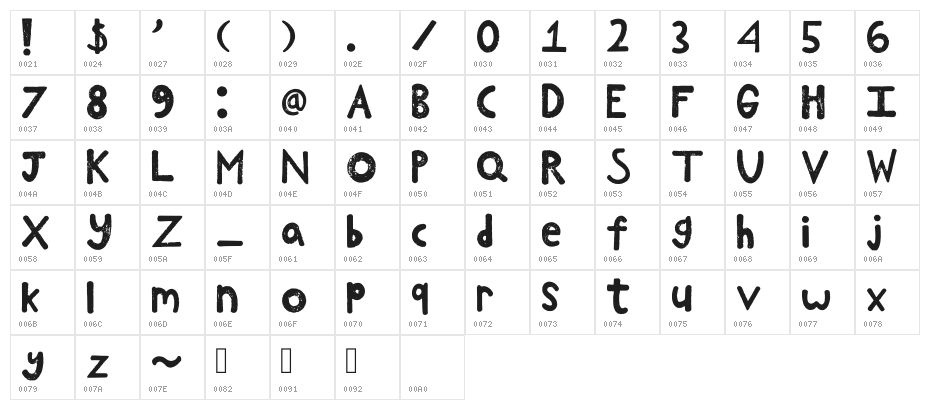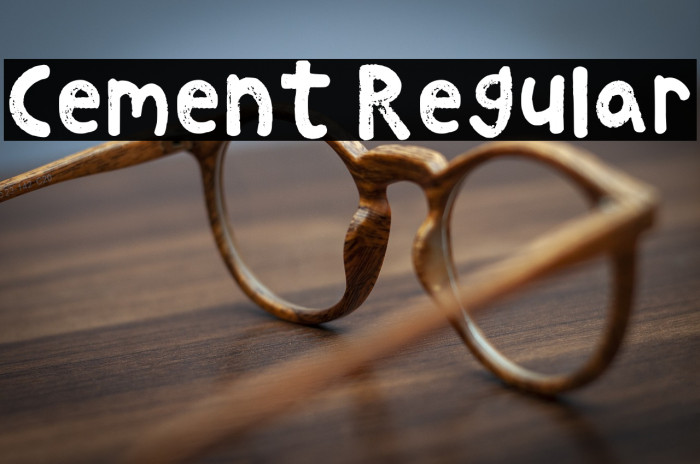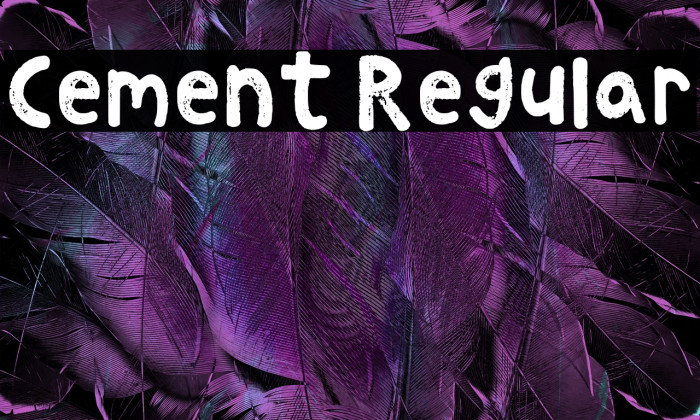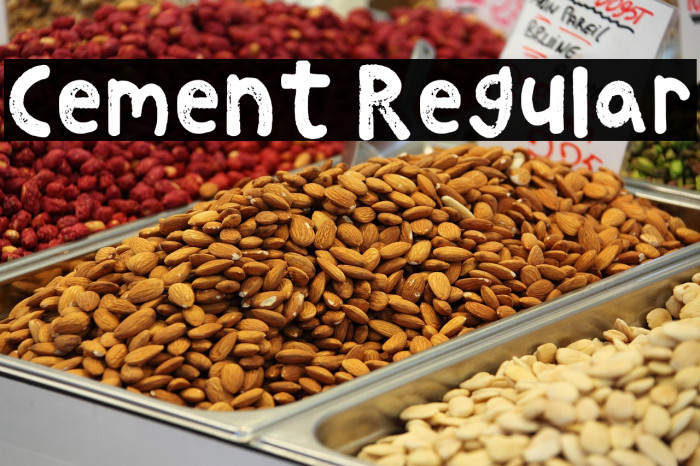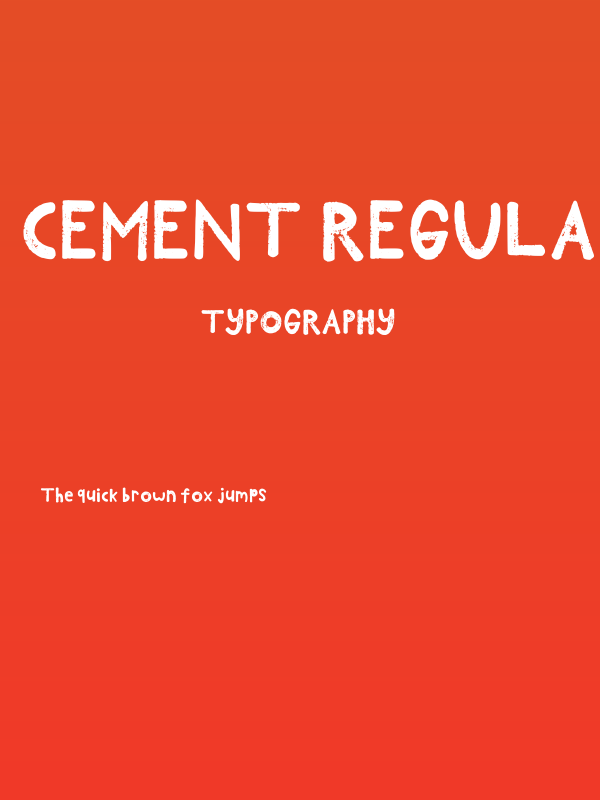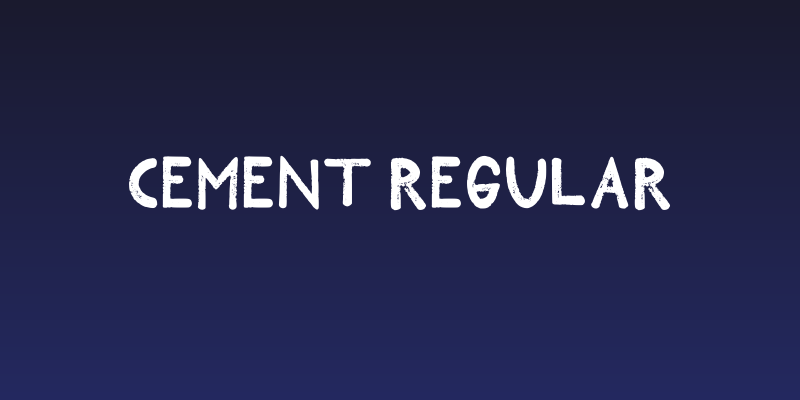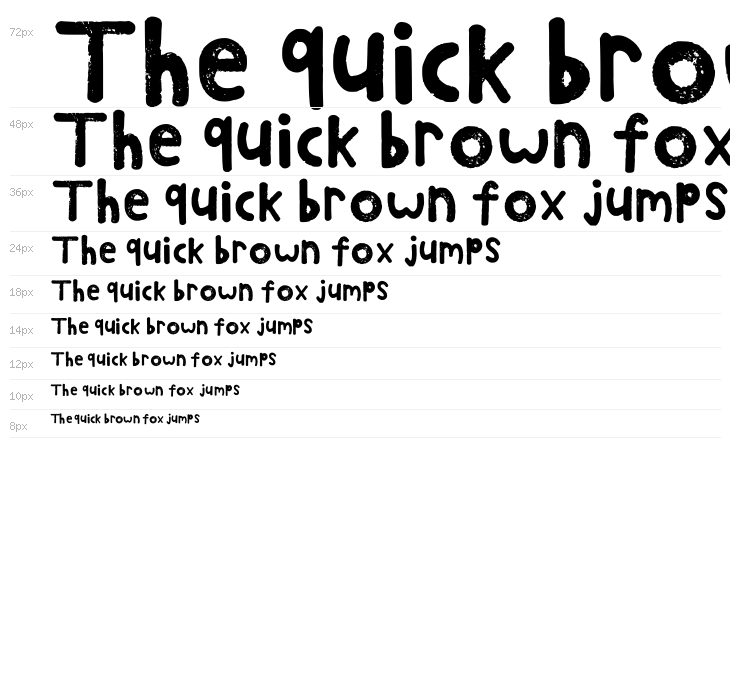
Cement Regular Font
Cement Regular Description
This font features a bold and playful design with a textured, distressed appearance that adds a vintage or handcrafted feel. The uppercase and lowercase letters are slightly irregular, giving it a quirky and informal style. The numbers and special characters maintain this textured look, making the font suitable for creative and artistic projects. Its unique style is eye-catching and can add a distinctive character to any design.
| Overall Style | Vintage, Decorative |
| Proposed Projects | Ideal for posters, branding, packaging, and any project that requires a creative and artistic touch. |